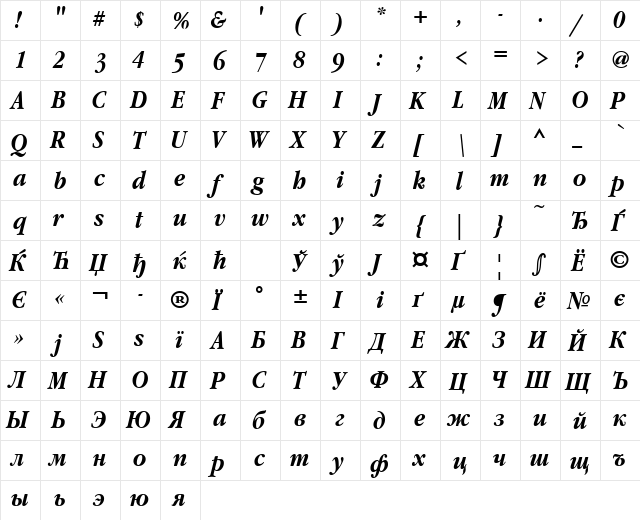
GaramondNarrowCTT BoldItalic Font Preview
Design Context for GaramondNarrowCTT Typeface
GaramondNarrowCTT takes a measured approach to typography — its balanced proportions and neutral character make it a reliable workhorse for both digital and print work. The dynamic lean of this cut emphasises speed and emphasis in any layout. Its bold stroke weight gives it real presence on the page. The condensed width makes it efficient for tight spaces without sacrificing legibility.